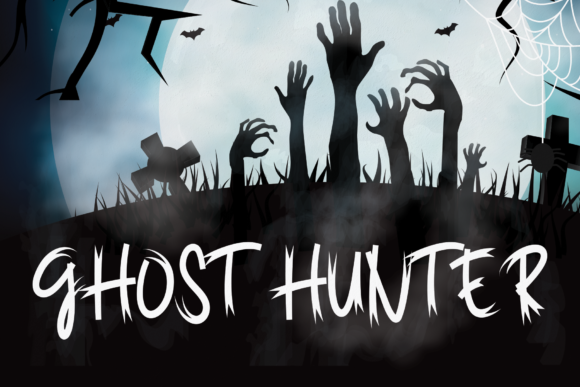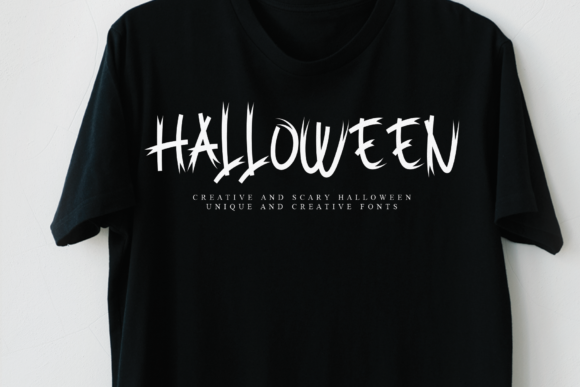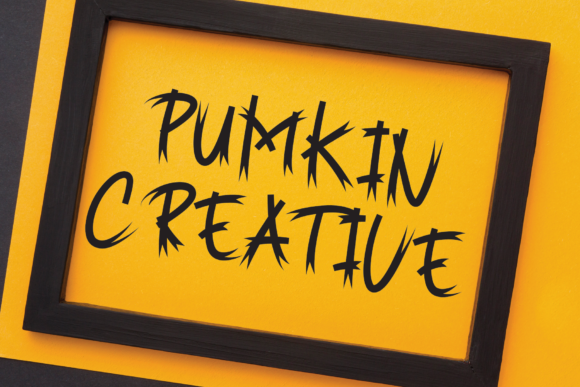
Batnight Font: Elevate Your Crafting Ideas with a Cool, Brushed Display Font
Are you a designer, crafter, or DIY enthusiast looking for a unique and versatile font to take your projects to the next level? Look no further than Batnight Font, a cool, brushed display font that’s perfect for a wide range of crafting ideas. From cards and invitations to branding, labels, and more, Batnight Font is the perfect addition to your creative toolkit.
What is Batnight Font?
Batnight Font is a stylish, hand-brushed display font that’s designed to add a touch of personality and flair to your projects. With its rough, textured look, Batnight Font gives your text a unique, organic feel that’s perfect for creating eye-catching headlines, titles, and captions. Whether you’re working on a DIY project, creating custom crafts, or designing marketing materials, Batnight Font is the perfect choice.
Key Features of Batnight Font
- Cool, Brushed Look: Batnight Font features a unique, hand-brushed look that’s perfect for creating eye-catching text.
- Versatile: Batnight Font can be used for a wide range of crafting ideas, from cards and invitations to branding, labels, and more.
- High-Quality: Batnight Font is a high-quality font that’s designed to produce crisp, clear text at any size.
Inspiration for Using Batnight Font
Need some inspiration for using Batnight Font? Here are a few ideas to get you started:
- Custom Cards and Invitations: Use Batnight Font to create eye-catching custom cards and invitations for special occasions.
- Branding and Packaging: Add a touch of personality to your branding and packaging with Batnight Font.
- DIY Crafts: Use Batnight Font to create custom labels, signs, and other decorative elements for your DIY crafts.
- Marketing Materials: Use Batnight Font to create eye-catching headlines and titles for your marketing materials, such as brochures, flyers, and posters.
Benefits of Using Batnight Font
There are many benefits to using Batnight Font in your projects. Here are a few:
- Adds Personality: Batnight Font adds a touch of personality and flair to your text, making it stand out from the crowd.
- Increases Visibility: The bold, eye-catching look of Batnight Font makes it perfect for creating headlines and titles that grab attention.
- Versatile: Batnight Font can be used for a wide range of projects, making it a great addition to your font library.
If you’re looking for a cool, brushed display font to elevate your crafting ideas, look no further than Batnight Font. With its unique, hand-brushed look and versatile design, Batnight Font is perfect for a wide range of projects, from cards and invitations to branding, labels, and more. So why wait? Download Batnight Font today and start creating amazing projects that showcase your personality and style.